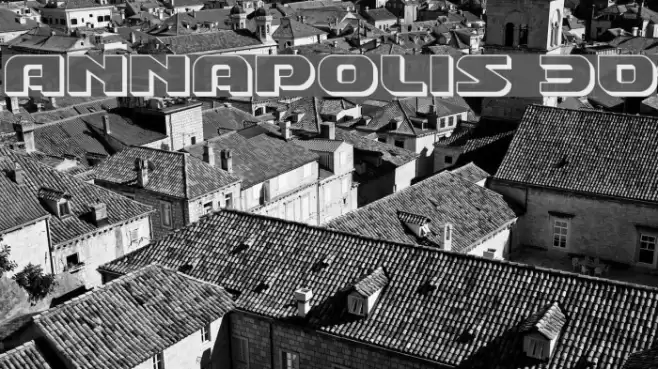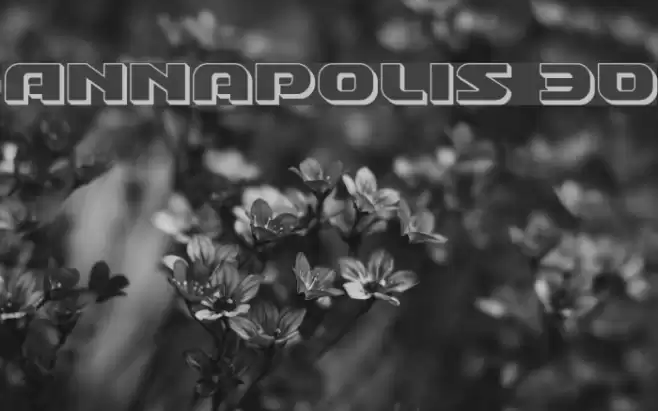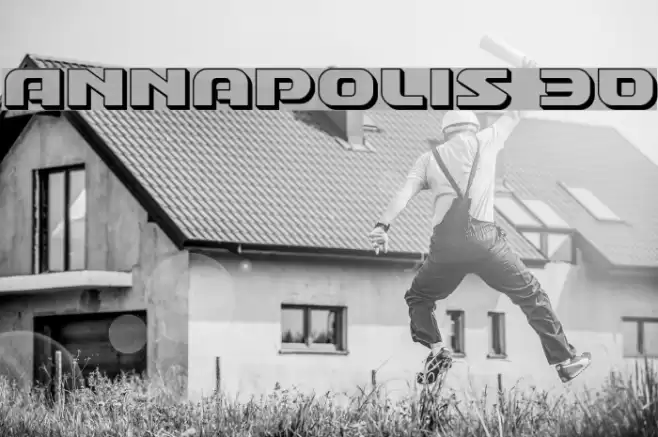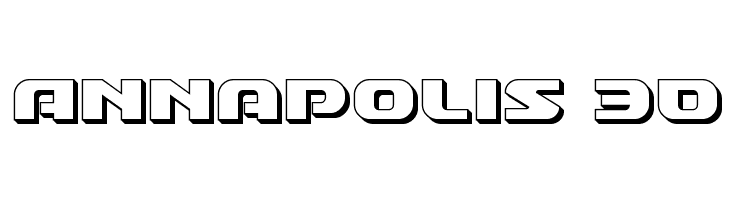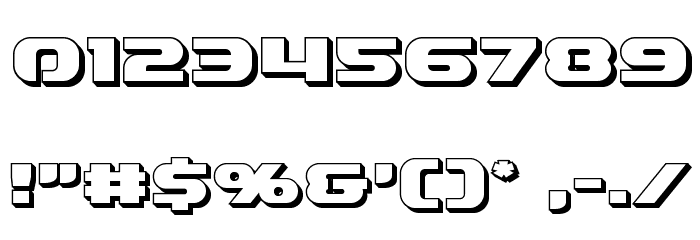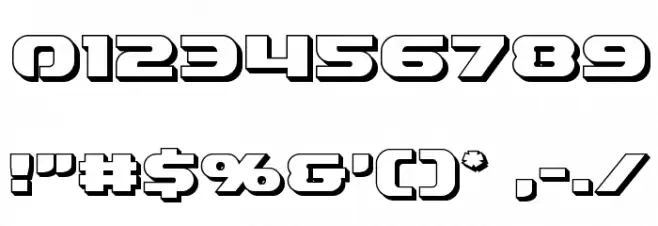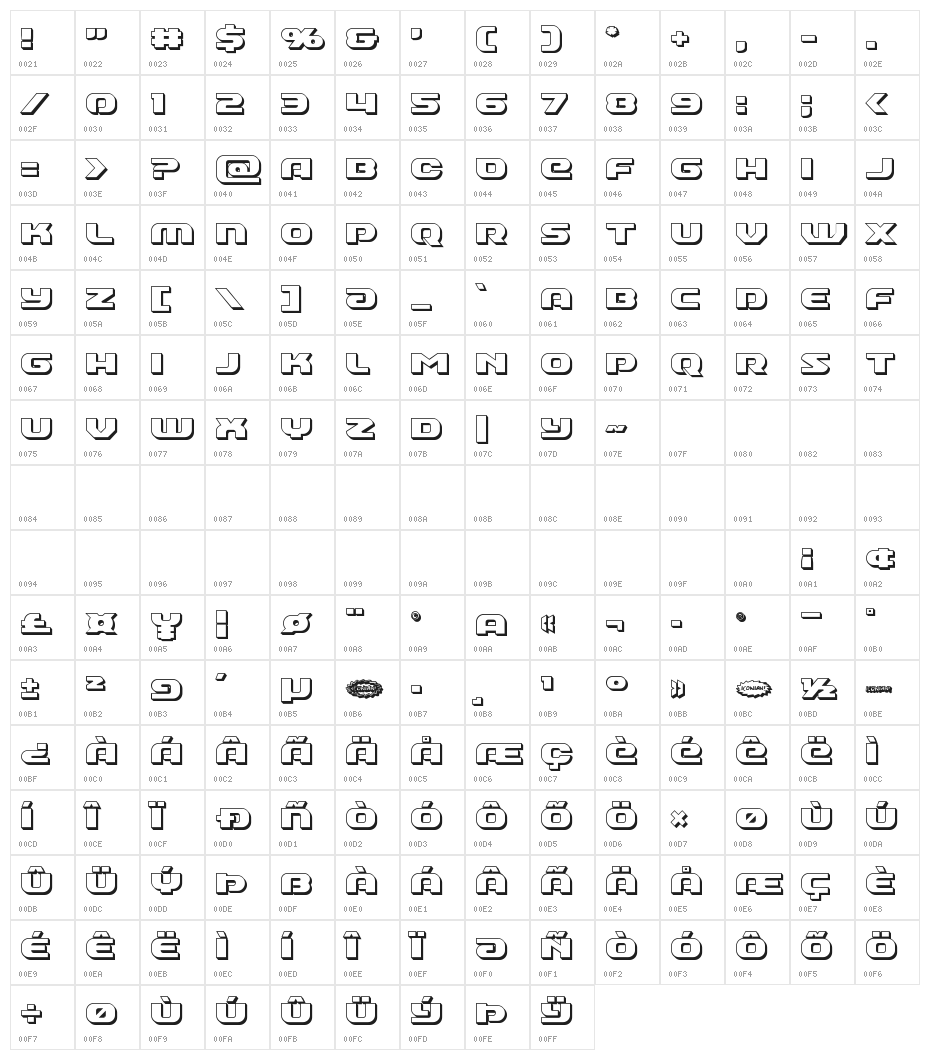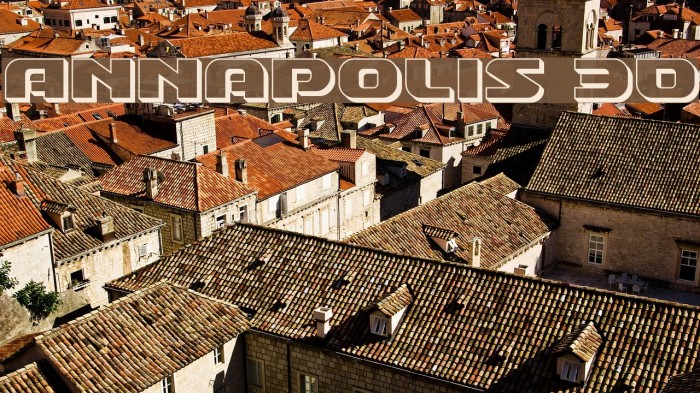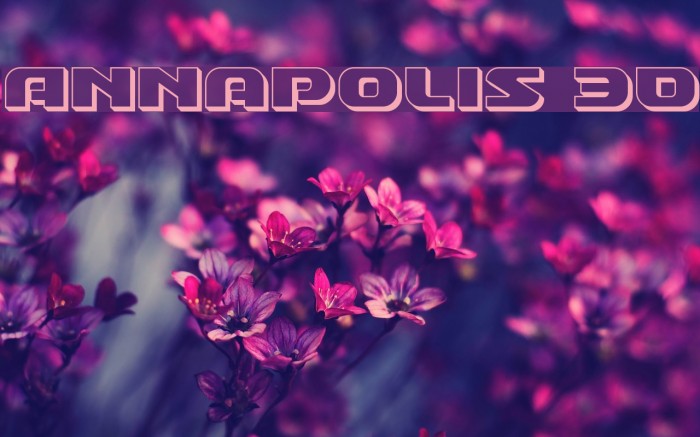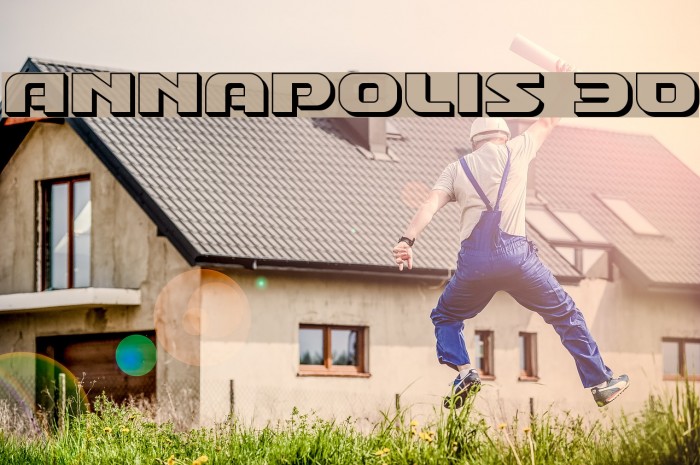
Annapolis 3D Font
Annapolis 3D Description
This font features a bold, three-dimensional design with a modern and futuristic appeal. The characters are outlined with a shadow effect that gives them a raised appearance, adding depth and visual interest. The geometric structure of each letter is consistent, with clean lines and sharp angles that contribute to its contemporary style. The font maintains uniformity across uppercase and lowercase letters, as well as numbers and special characters, ensuring versatility in various design applications. Its distinct look makes it ideal for projects that require a strong visual impact.
A bold, 3D geometric font with a modern, futuristic style from Sci-fi fonts.